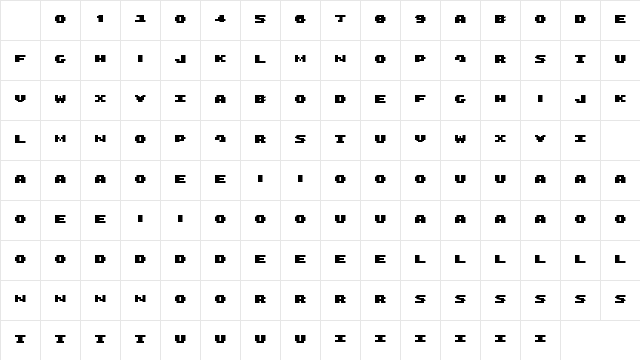
Complete 8-bit Arcade In Medium glyph index. Displaying only characters natively supported by 8-bit Arcade In Medium font.
8-bit Arcade In is a composed and adaptable typeface that performs quietly and consistently across a wide range of design contexts.